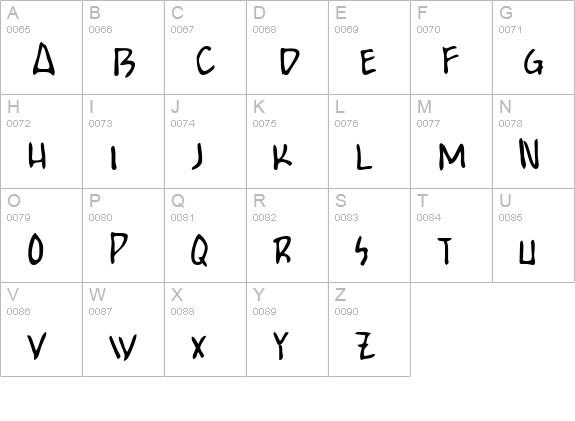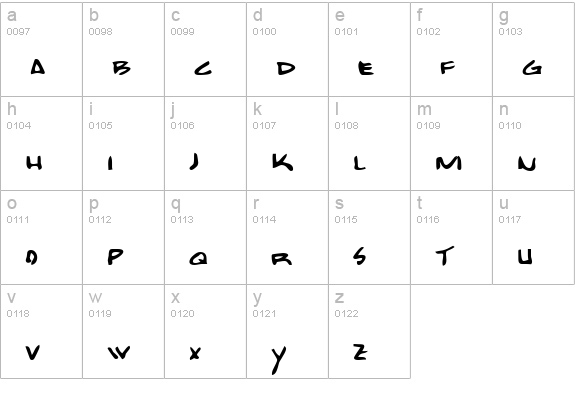
Bobcat Font Details
Bobcat font is a bold and modern typeface that exudes strength and confidence. With its sleek lines and sharp angles, this font is perfect for making a statement in your designs. Whether you're creating a poster, logo, or website, Bobcat font will add a touch of sophistication and flair. Best of all, Bobcat font is completely free to download at FontsMarket.com. This means you can access this versatile font without breaking the bank. So why wait? Download Bobcat font today and elevate your projects to the next level!